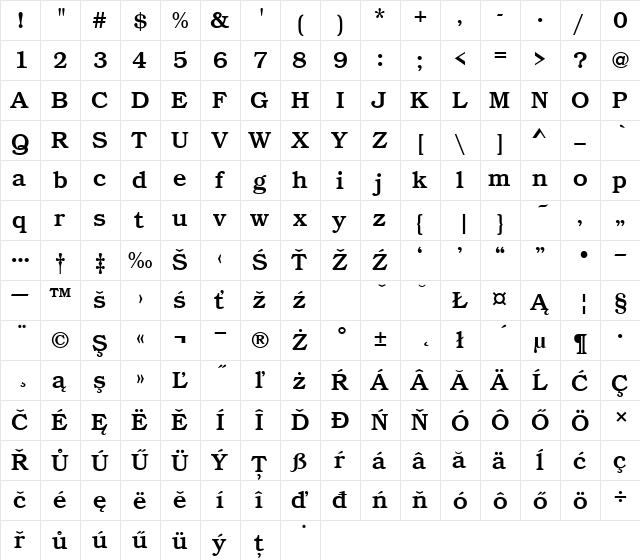
BookmItcTEEMed Regular
Design Context for BookmItcTEEMed Typeface
BookmItcTEEMed is a composed and adaptable typeface that performs quietly and consistently across a wide range of design contexts.